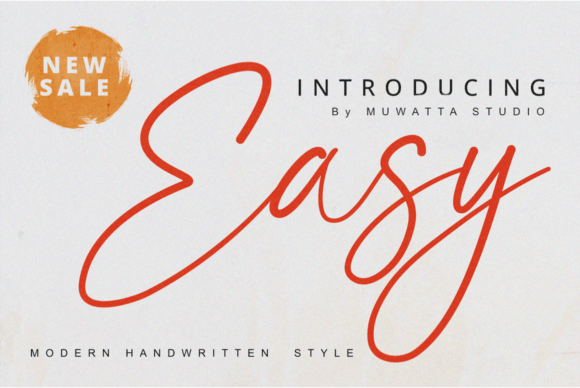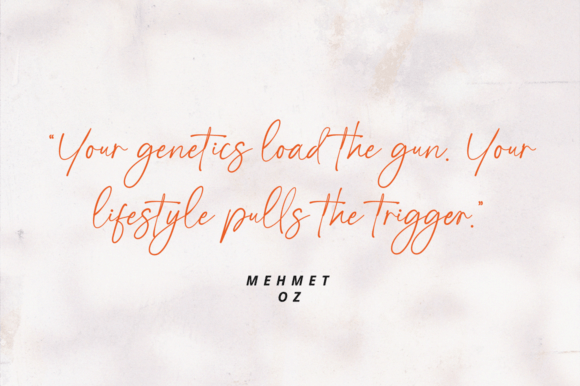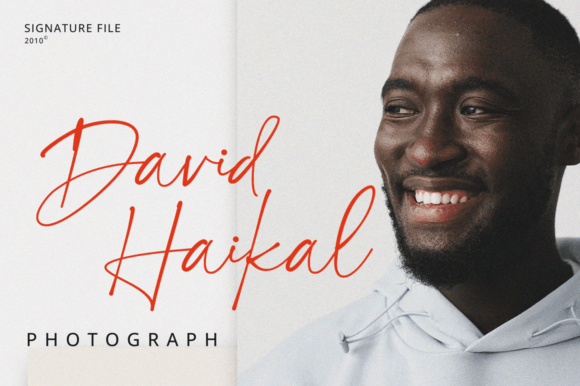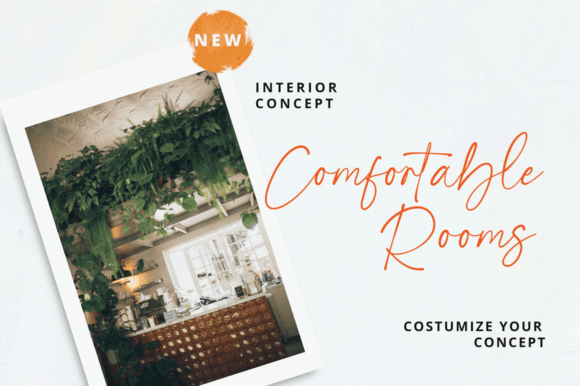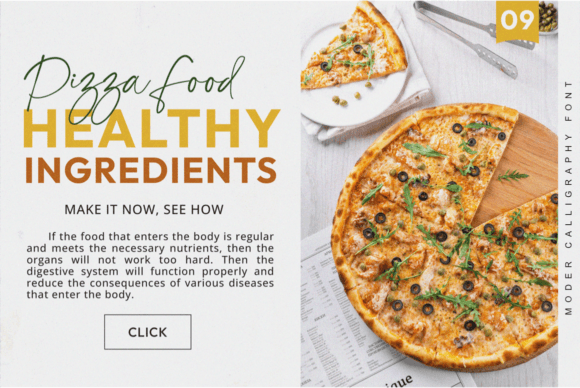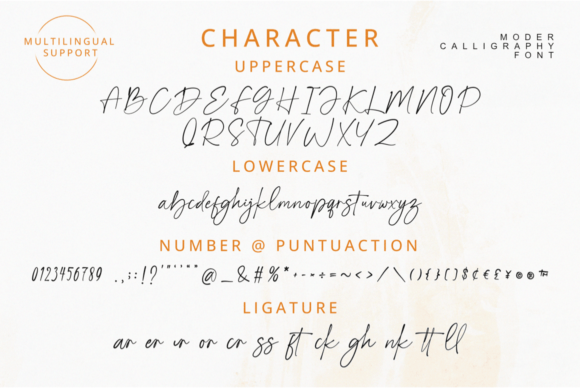
Easy Font
About Easy Font
Easy Font is a sleek and modern calligraphy typeface that brings a refined, organic touch to your design projects. With its flowing lines and minimalist structure, this elegant font is crafted to elevate visual aesthetics without overpowering the message. It’s an ideal choice for creatives who love subtle sophistication in their typography.
This handwritten script delivers a clean and smooth appearance, making it highly versatile for both personal and commercial use. Whether you’re designing for a modern brand, a romantic event, or a minimalist packaging line, EasyFont delivers timeless elegance and effortless beauty.
Where to Use Easy Font
This elegant typeface works beautifully across a wide variety of applications:
• ✒️ Minimalist Logos – Add character to fashion brands, cosmetics, and creative studios
• 💍 Wedding Stationery – Perfect for invitations, RSVP cards, and seating charts
• 💬 Instagram Quotes – Gives your social media posts a handwritten, elegant vibe
• 📦 Product Packaging – Ideal for skincare, candles, tea, and artisanal products
• 🌐 Web Design – Brings a premium look to headers, banners, and landing pages
• 📄 Printables – Great for thank-you cards, and cards
• ✍️ Modern Calligraphy Style – Elegant curves and strokes
• 🧩 Minimalist and Organic Look – Perfect balance of clean and
If you’re looking for a typeface that exudes modern simplicity with a essence, Easy Font is your new go-to. It blends elegance and usability for any project that demands a personal, polished look.